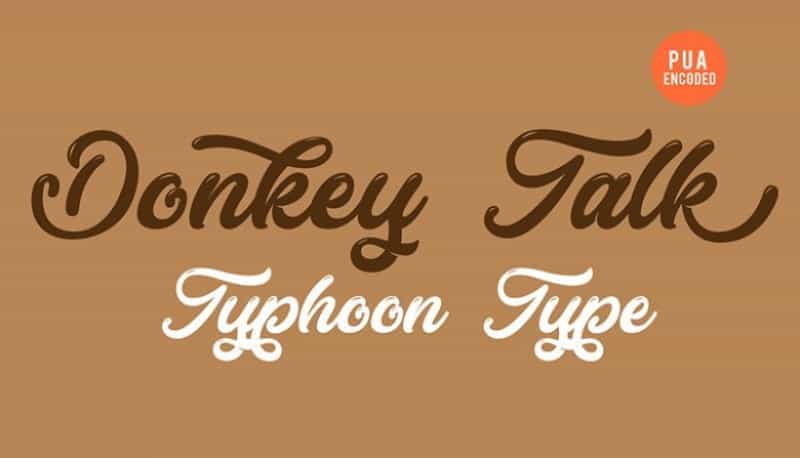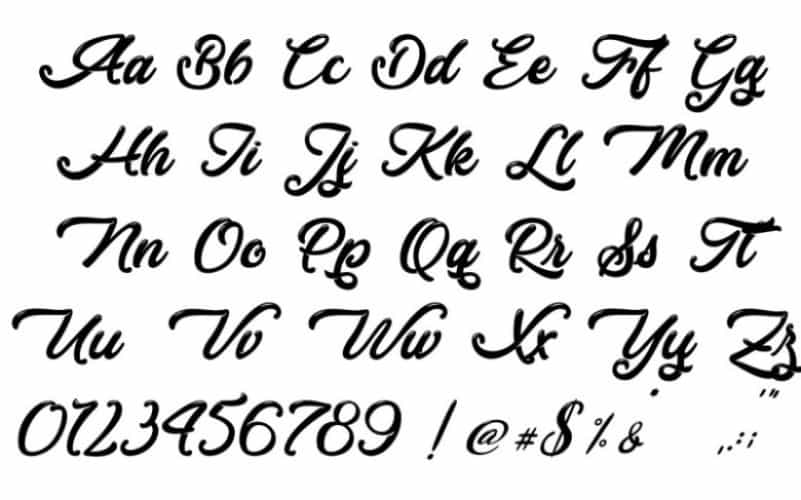
Donkey Talk Font is created based on the Retro style and mixed with Hand Lettering style. It is perfect for logos, handwritten quotes, product packaging, header, poster, merchandise, social media, and greeting cards. My fonts for free use allowed only in personal project.